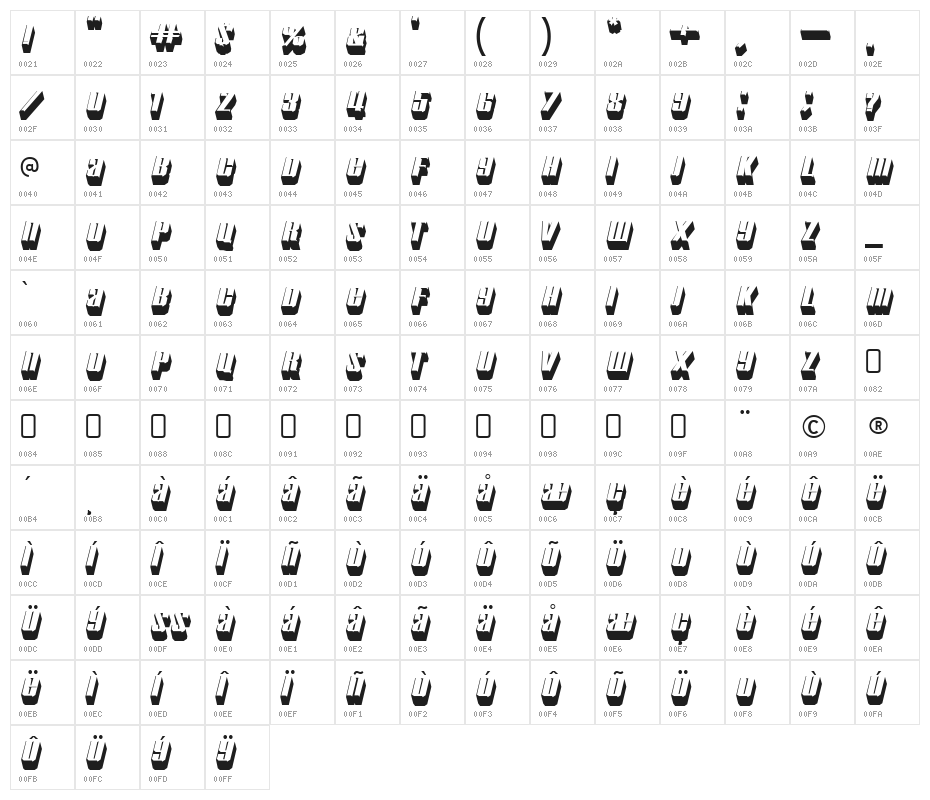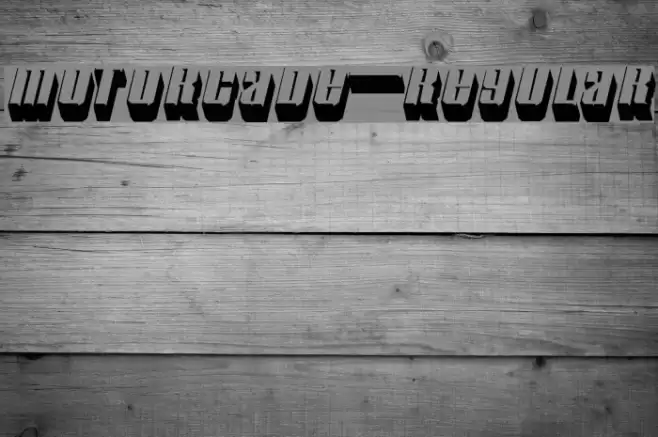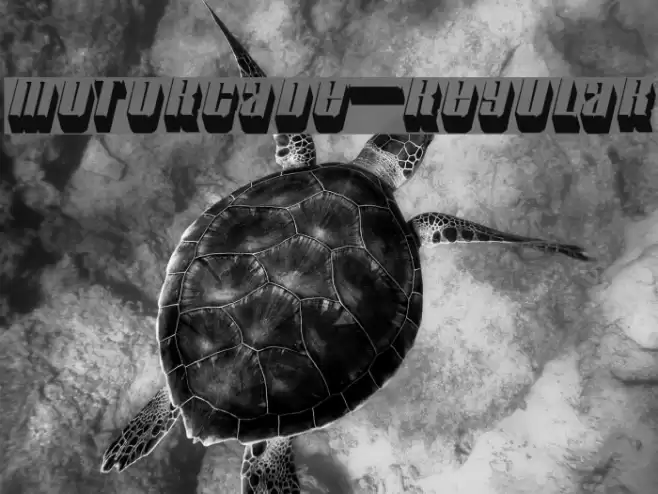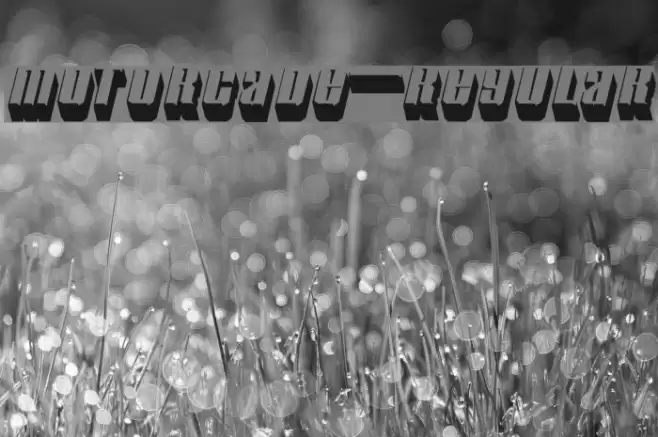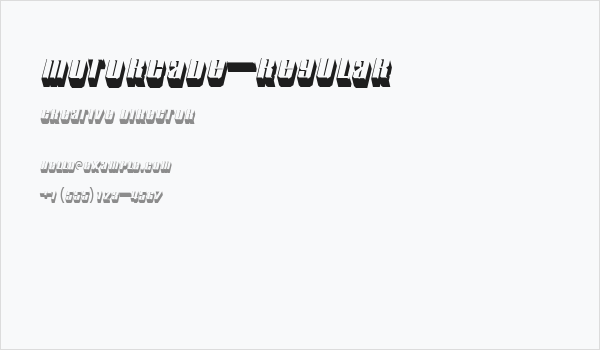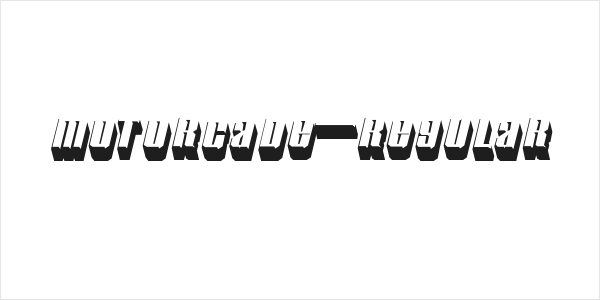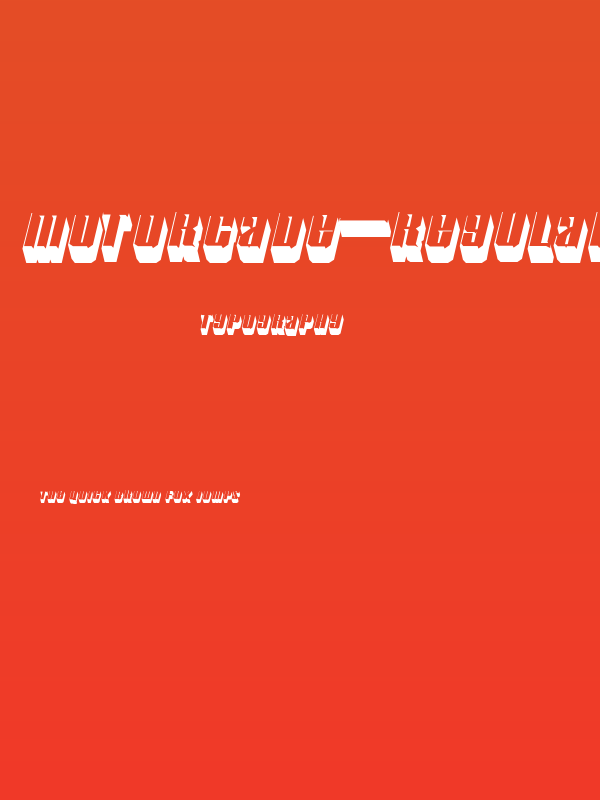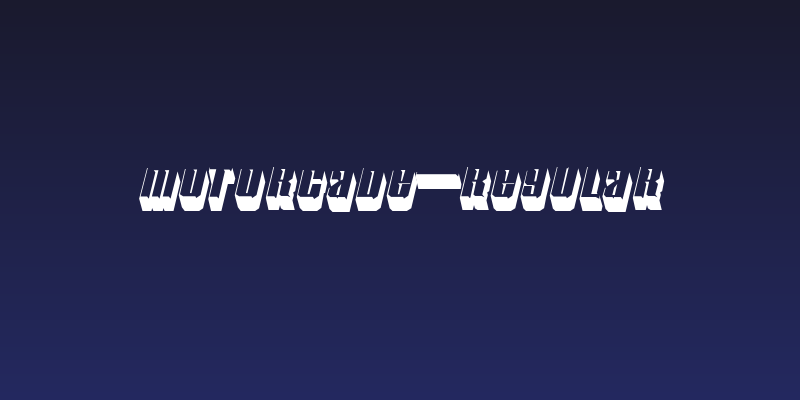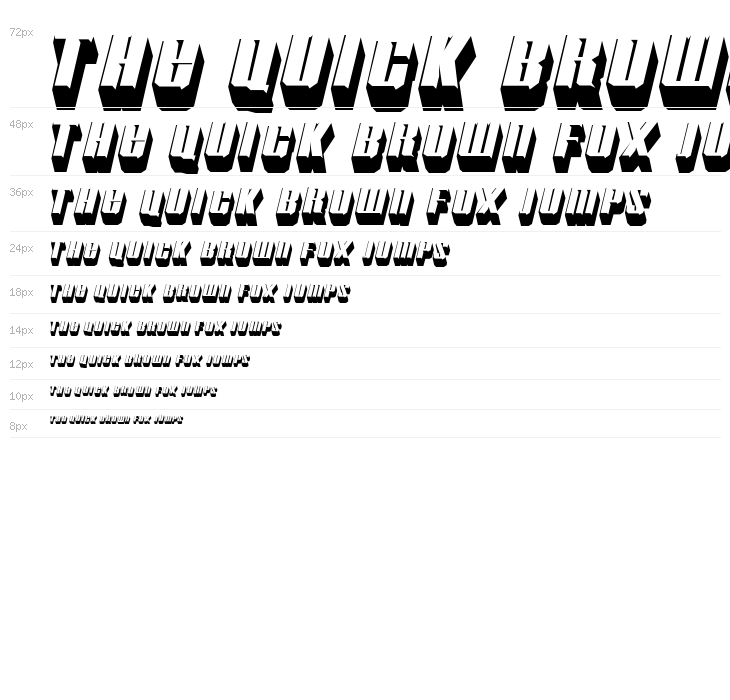
Motorcade-Regular Font
Motorcade-Regular Description
This font features a bold, three-dimensional design with a strong shadow effect, giving it a dynamic and impactful appearance. The characters are blocky and angular, with sharp edges and a futuristic style. The uppercase and lowercase letters maintain a consistent geometric structure, while the numbers and special characters follow the same bold, shadowed aesthetic. This font is designed to stand out, making it ideal for attention-grabbing headlines and titles.
| Overall Style | Futuristic, Bold |
| Proposed Projects | Ideal for use in posters, video game graphics, movie titles, and any project requiring a bold, futuristic look. |